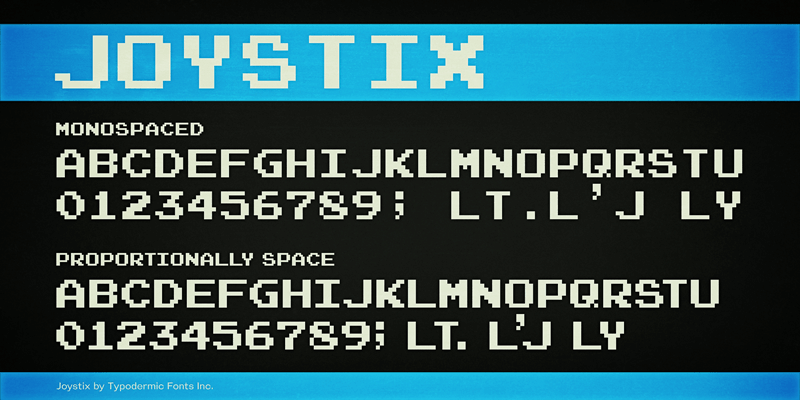
Joystix, the video game font has been upgraded. Accents have been replaced, punctuation and symbols have been added. It’s still monospaced and still free. Sometimes you need authentic, chunky arcade spacing but there are situations where refined, proportionally spaced headlines are the way to go. That’s why I made Joystix Proportional. It saves space too, so it’s better suited as a blog headliner than Joystix Monospaced. This font includes a license that allows free commercial use: sometimes referred to as a desktop license. This allows you to install the font on a computer and use it to create posters, web graphics, game graphics, t-shirts, videos, signs, logos and more. Read the license agreement for details. If you'd like to embed this font in an app, ebook, on the web or anything that's not covered by the desktop license agreement, visit the link below. You'll find distributors who offer different types of licenses or you can contact me for help. http://typodermicfonts.com/proportional-joystix/ This free font is part of a larger font family. Check out the rest of the family through the link above. |